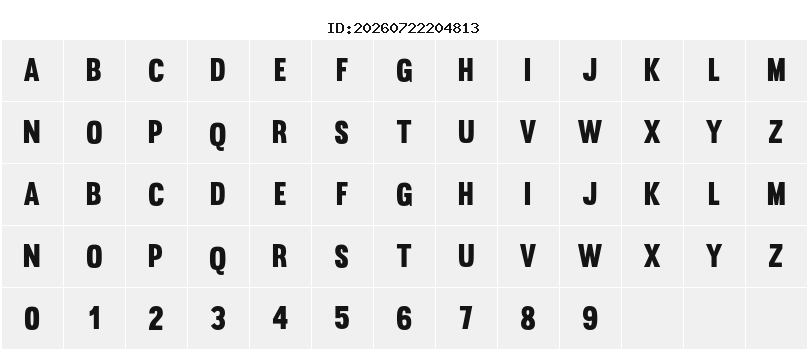
Muro Preview
• Designer: La Tipomàtica
About Muro.otf
Muro.otf is a modern, elegant sans-serif font designed for ultimate readability and visual harmony. Perfect for branding, headlines, web design, and print materials.